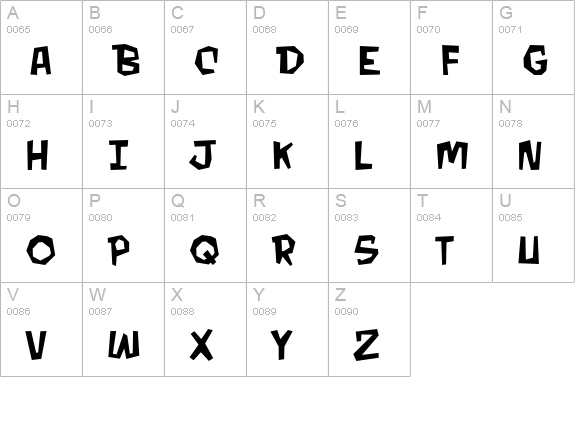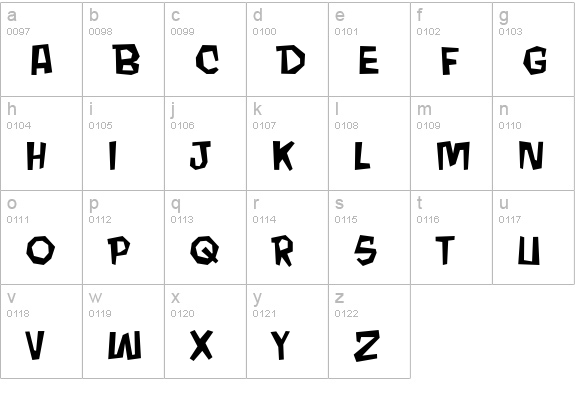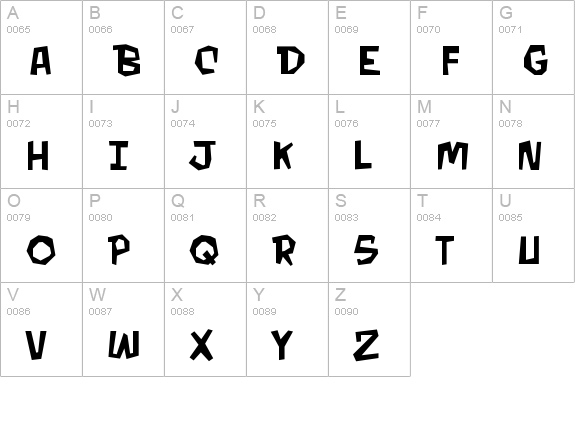
MondoBeyondo BB font is a bold and eye-catching typeface that exudes a sense of modernity and creativity. With its unique design and quirky charm, this font is perfect for adding a touch of personality to any project. Whether you're designing a poster, logo, or website, MondoBeyondo BB font is sure to make a statement. The best part? MondoBeyondo BB font is completely free to download at FontsMarket.com. This means you can easily access this versatile font and use it in your projects without any cost. Don't miss out on the opportunity to enhance your designs with the playful and captivating MondoBeyondo BB font today!